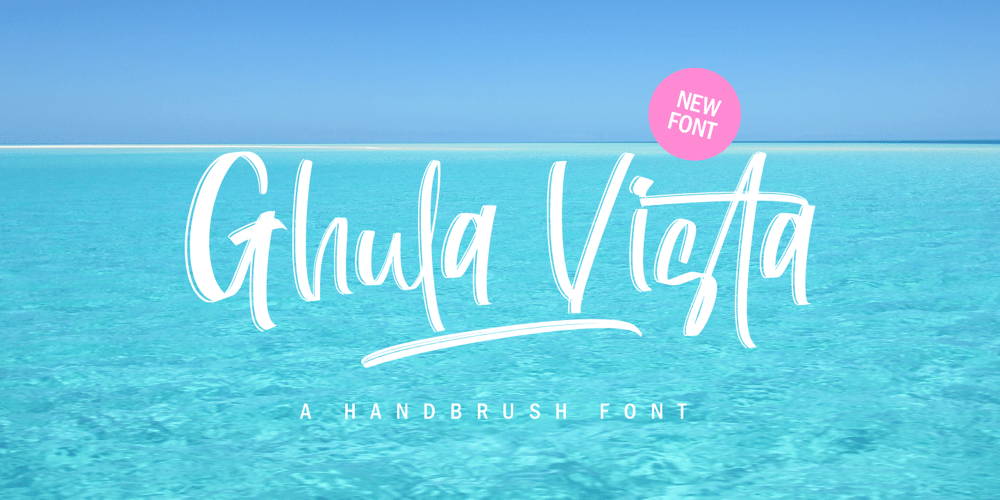
Ghula Vista Font Family was designed by Hayinah and published by Rockboys Studio. Ghula Vista contains 2 styles and family package options. Southeast is a chic, paint brushed script font that emanates sophistication and elegance. Its stylish alternates and ligatures make this font the perfect match for any project.